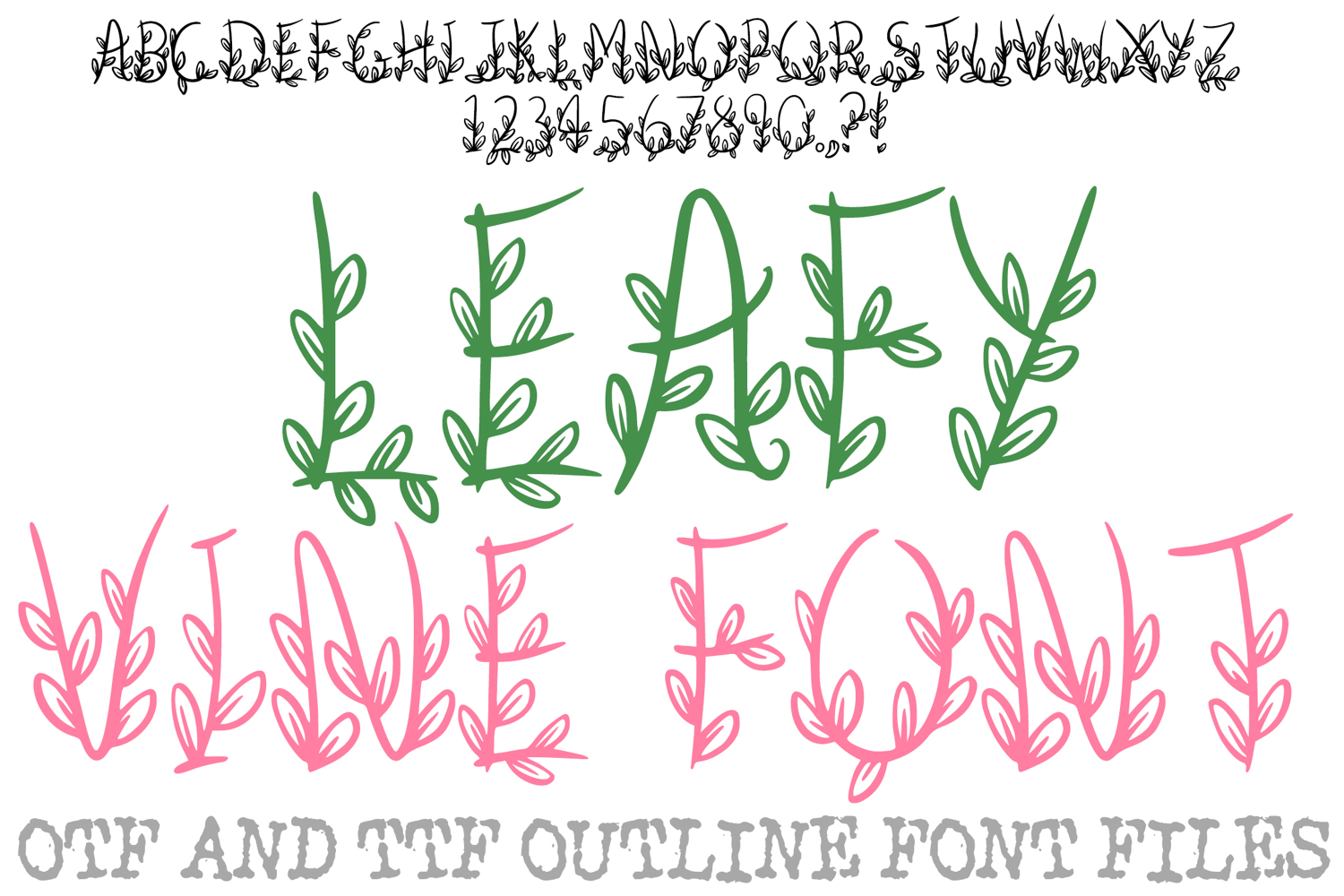
Bring a touch of organic elegance to your canvas with the Leafy Vine Font! This hand-drawn display alphabet features thin, graceful letterforms that appear to grow and sprout with delicate leaves and climbing vines. It is the ultimate choice for botanical branding, garden-themed invitations, eco-friendly packaging, and whimsical digital scrapbooking.
The "climbing ivy" aesthetic of each character provides a fresh, garden-inspired feel, making your typography look as though it’s blooming right off the page. Whether you are designing for a local plant shop, creating ethereal wedding stationery, or adding a natural touch to a lifestyle blog, the Leafy Vine Font offers a refined, cottagecore aesthetic that is both artistic and inviting.
Delicate Leafy Details: Every character is adorned with multiple hand-drawn leaves along its stems for a lush, botanical appearance.
Elegant Thin Strokes: The slender, curving lines of the letters mimic the natural growth of vines and branches.
Organic Garden Vibe: The placement of the leaves gives the font a unique, non-uniform look that feels authentic and artisan-crafted.